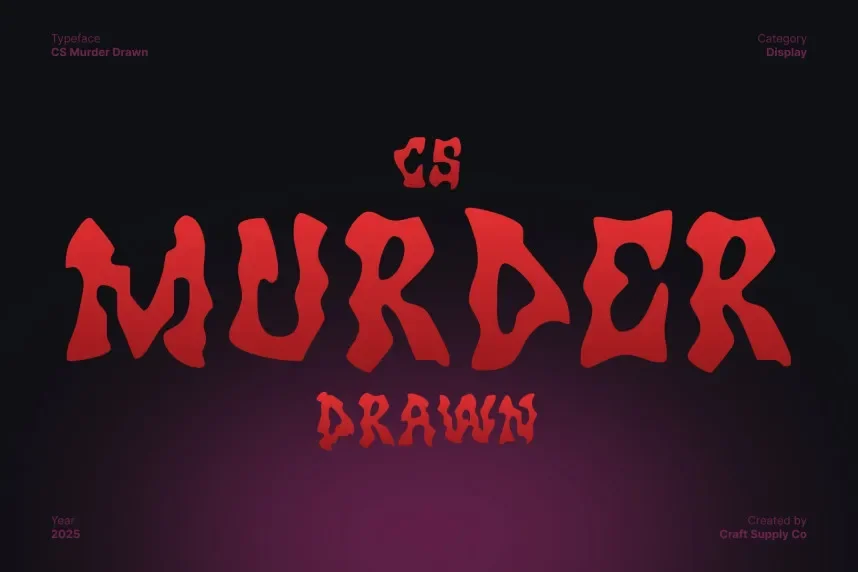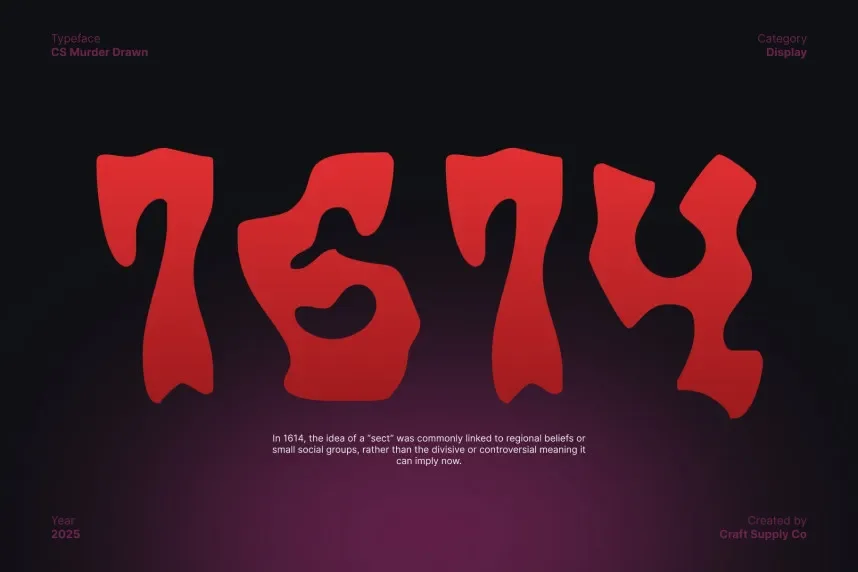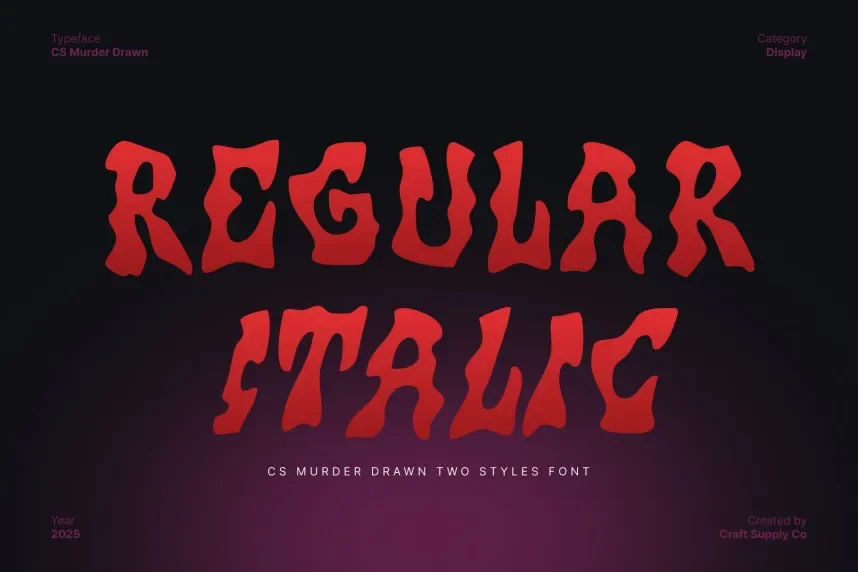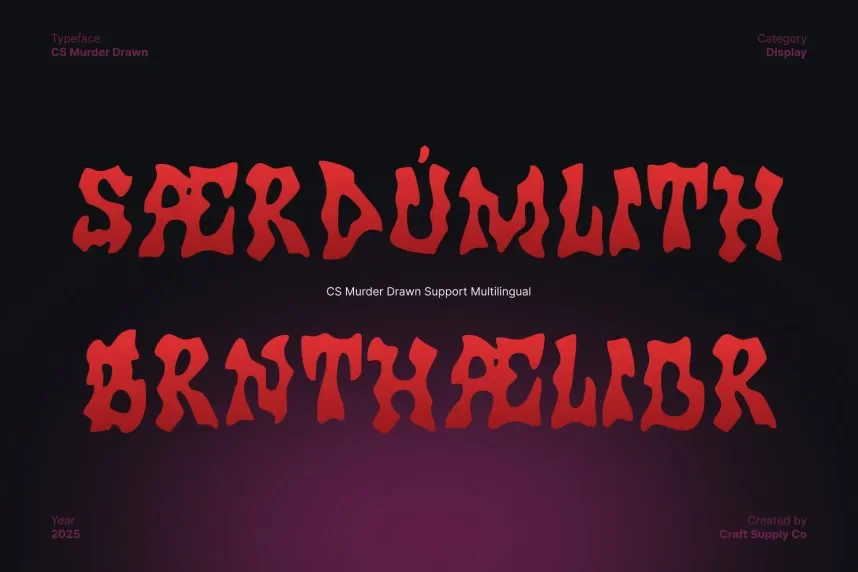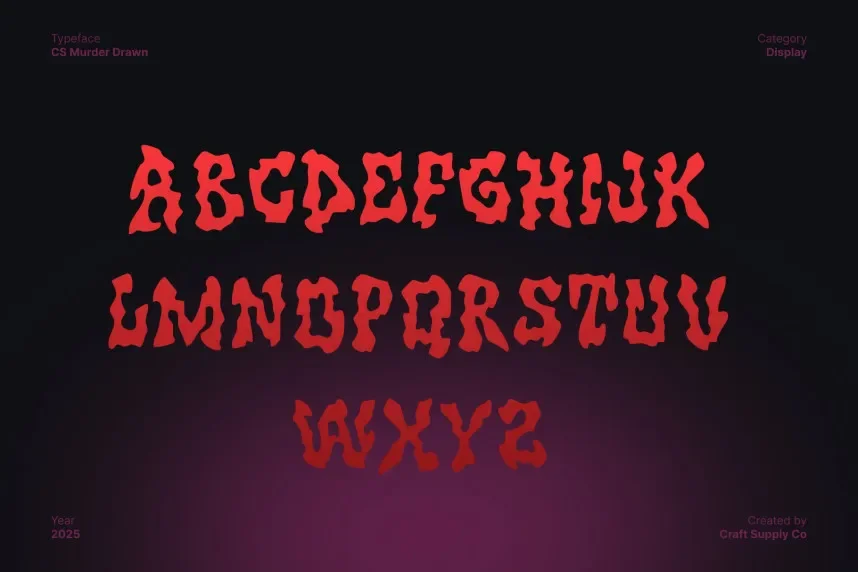
CS Murder Drawn Font is a dramatic and edgy display font that uses sharp lines and contrasting strokes to create a bold, intense look. Perfect for horror-themed designs, movie posters, or creative branding, it brings attention and intensity without sacrificing readability. The unique curves and harsh angles make it stand out.